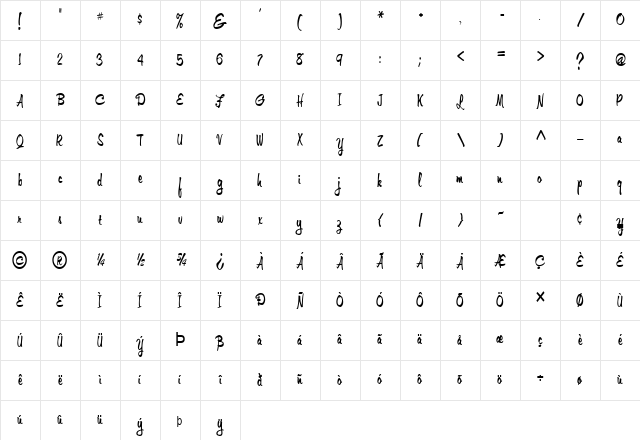
MemoCondensed Normal
MemoCondensed Family
Design Context for MemoCondensed
MemoCondensed is a composed and adaptable typeface that performs quietly and consistently across a wide range of design contexts. Its narrow stance lets it pack a punch even in space-constrained designs.